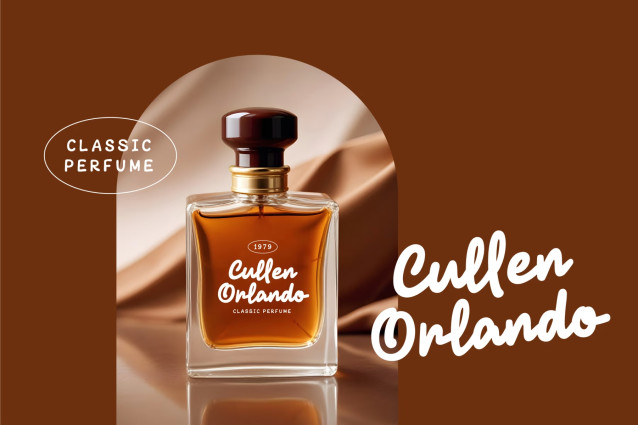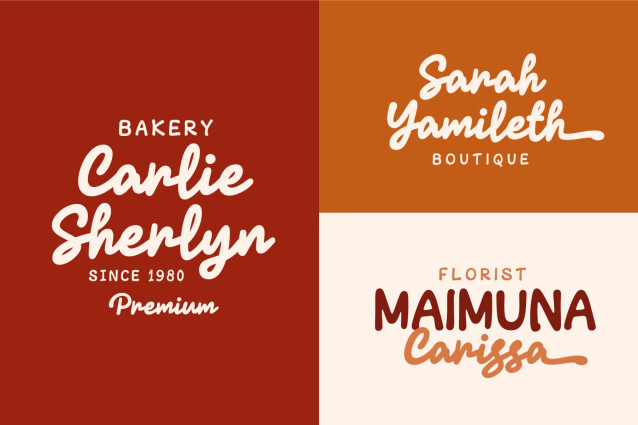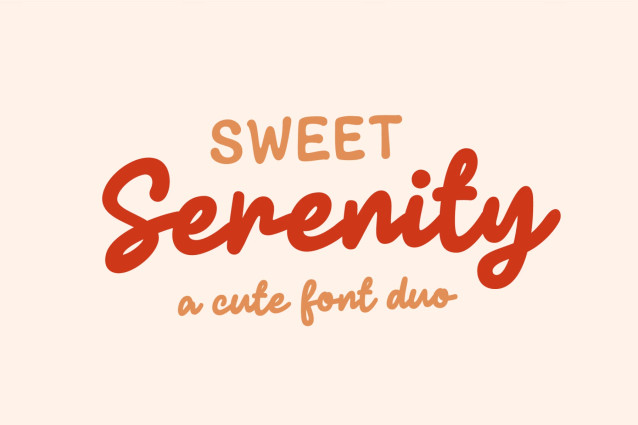
Sweet Serenity – Cute Font
Sweet Serenity is a cute font duo that adds a touch of fun to your creative projects. Sweet Serenity is perfect for creating a wide variety of new designs to match products such as banners, content, cards, shirts, stationery, social media posts, and much more!
Feature :
• Ligature & Alternate glyphs
• Multilingual Language